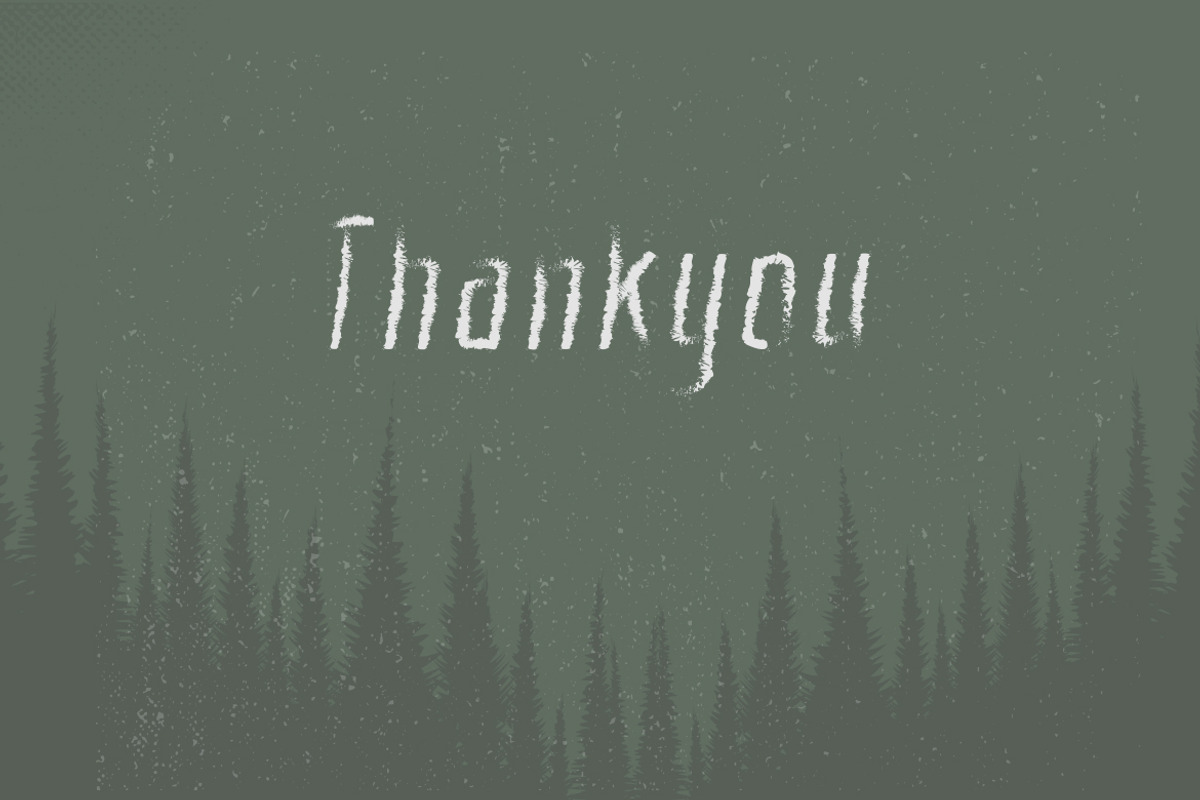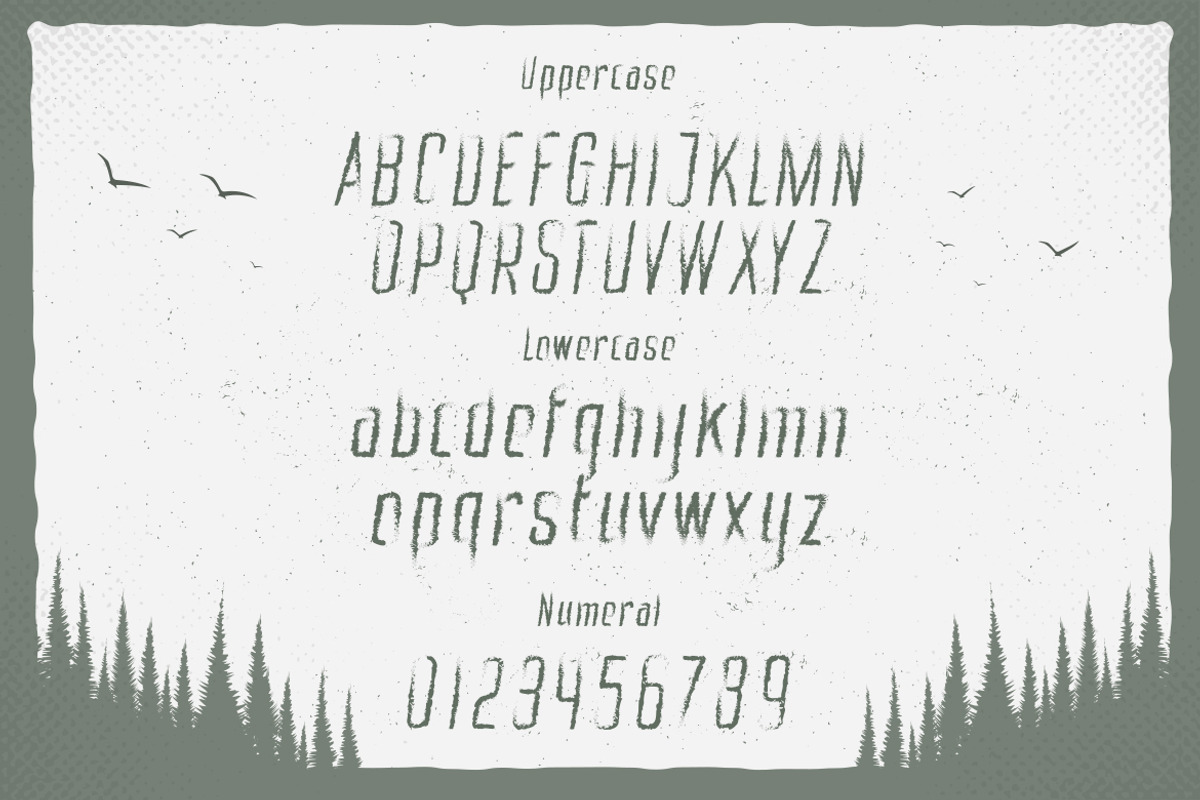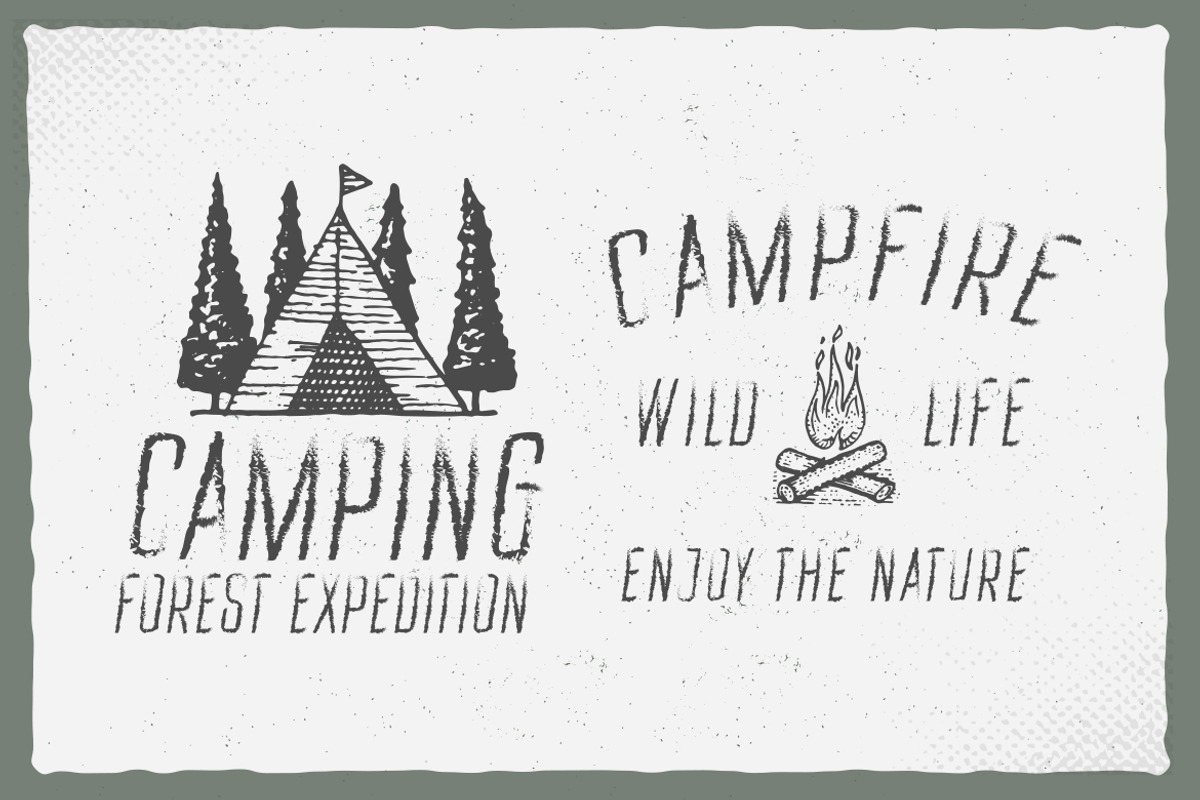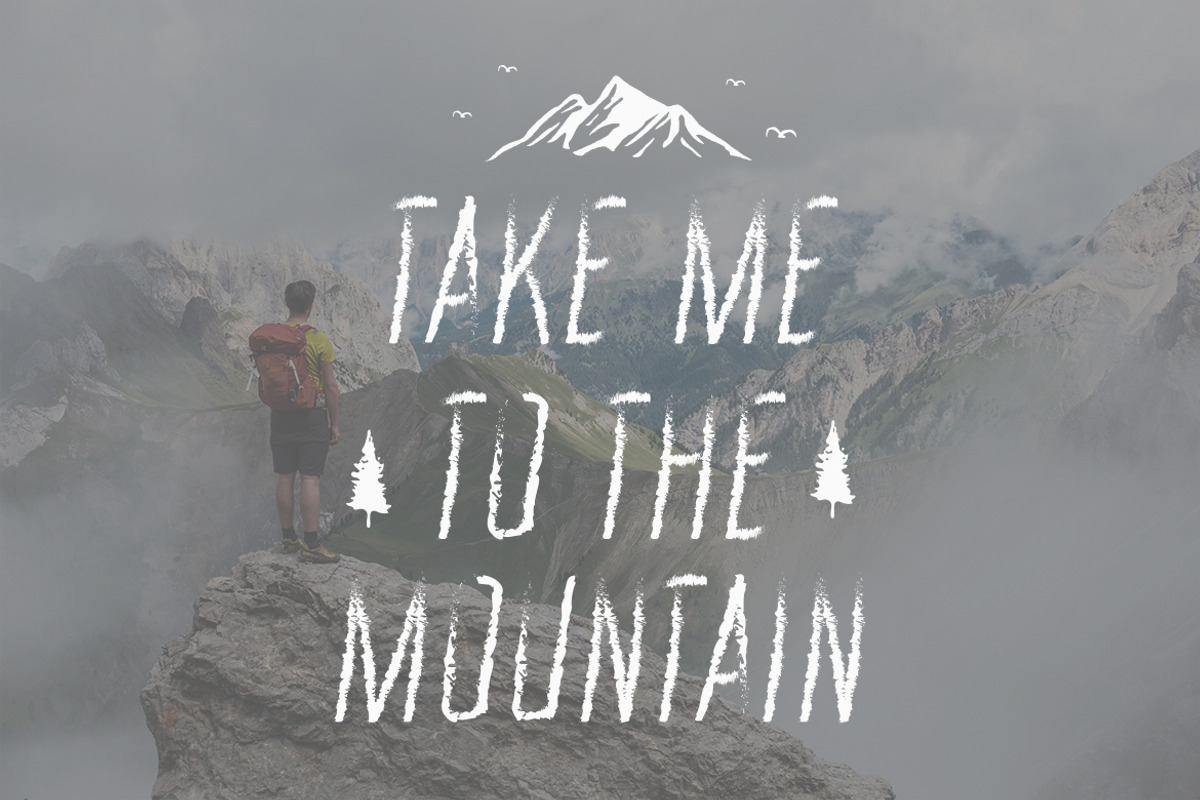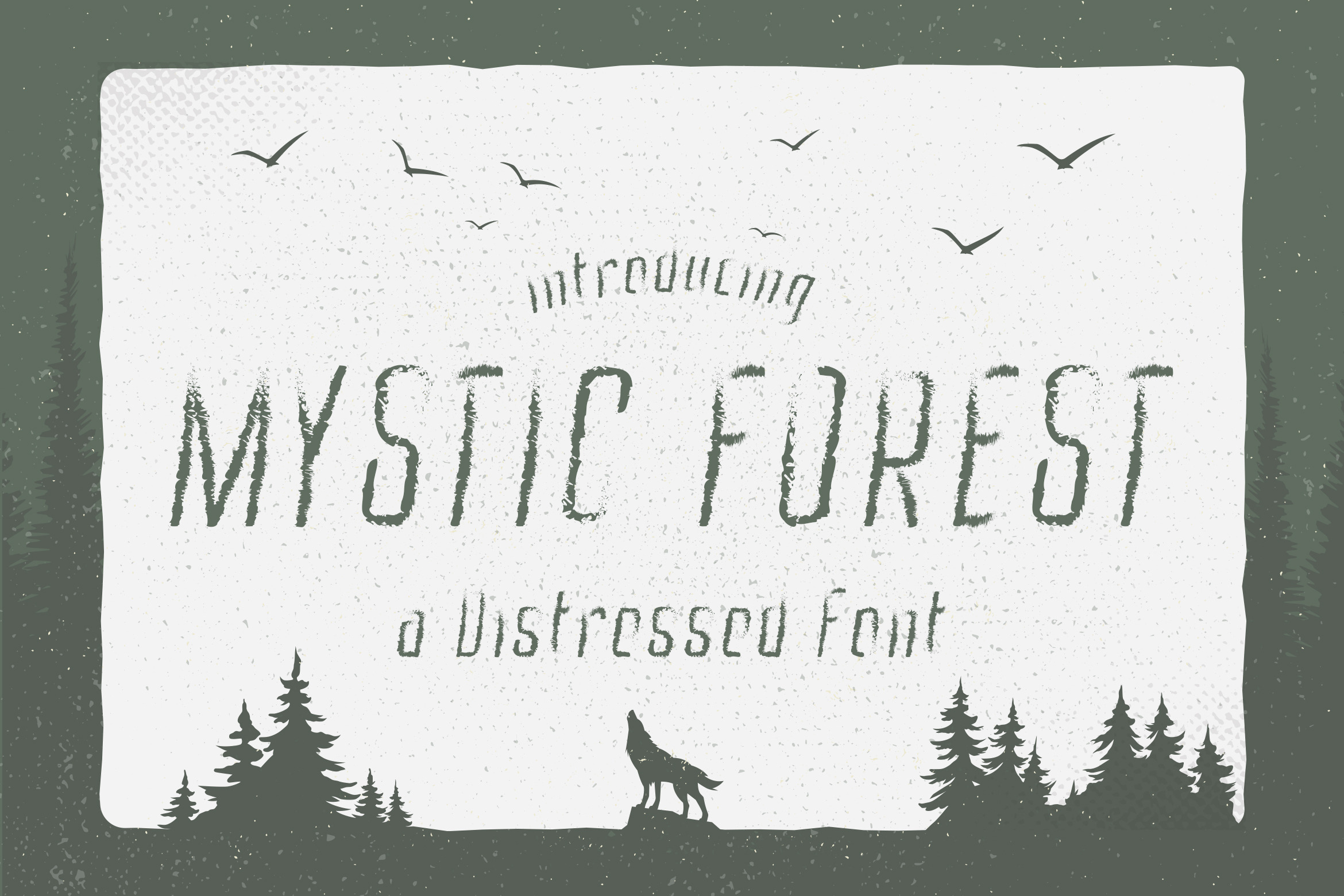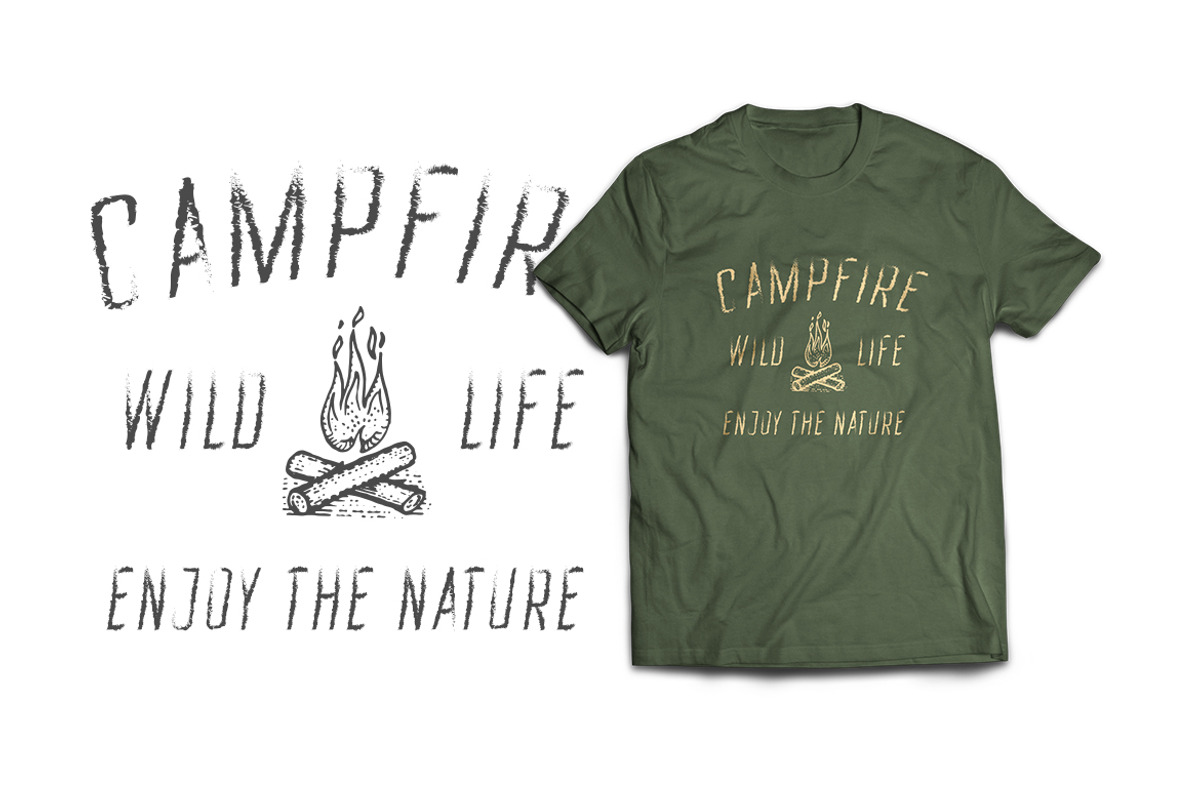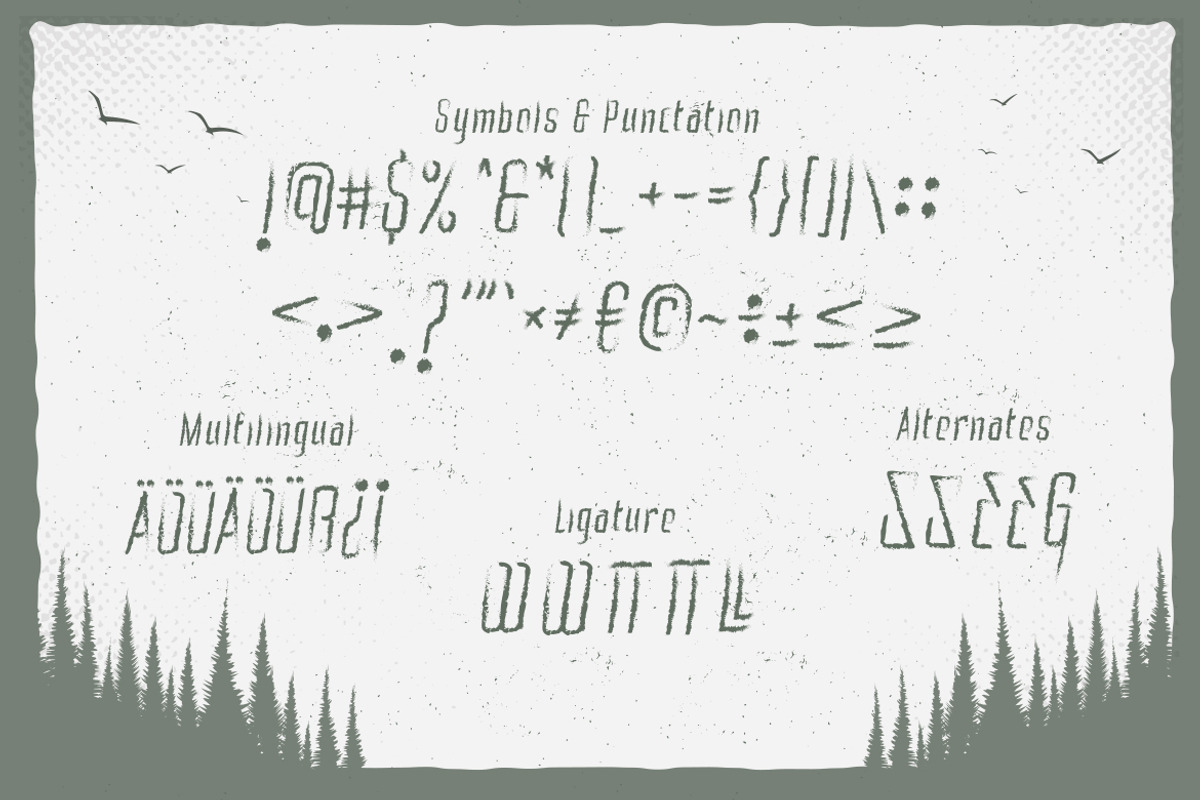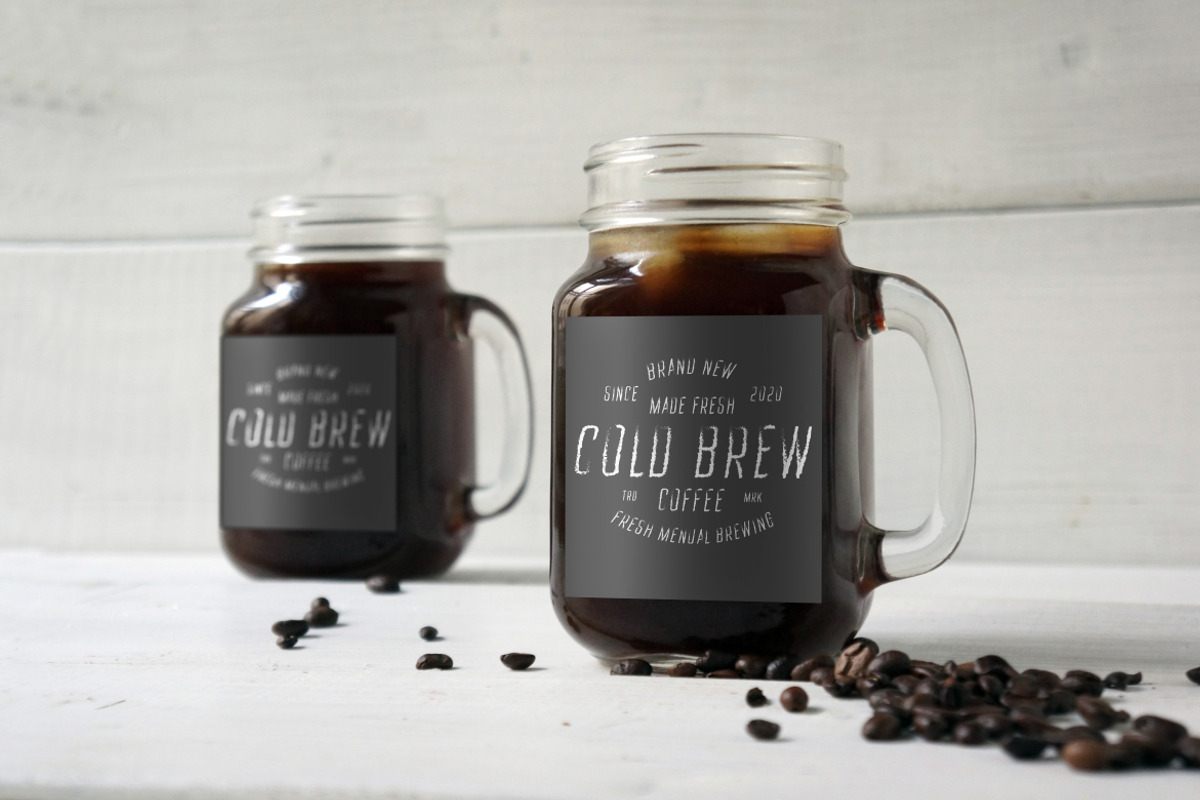
Mystic Forest - Distressed Font
Mystic Forest is a unique decorative distressed font, perfectly suitable for for brand, logo’s, titles and short phrases. Also highly usable as a stencil font for graffiti.